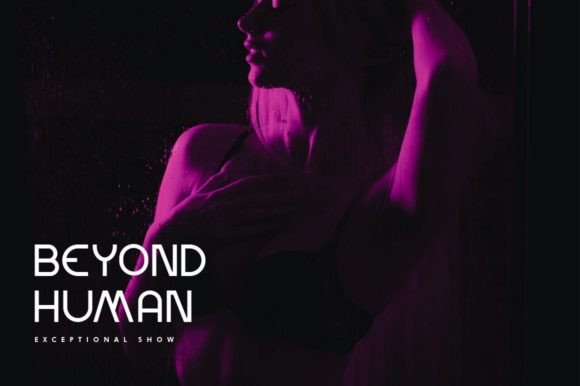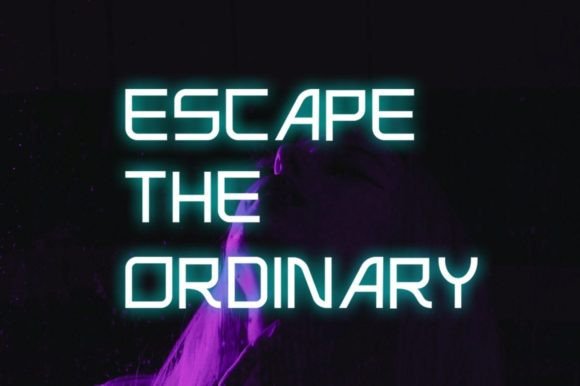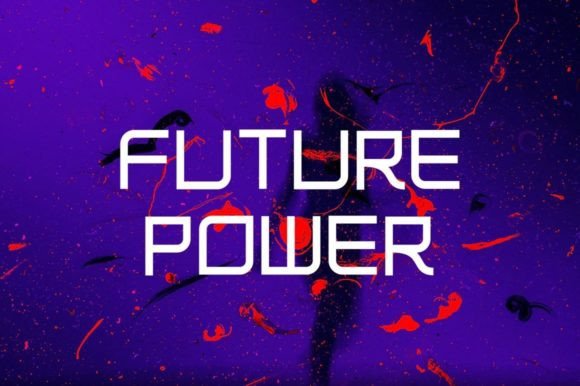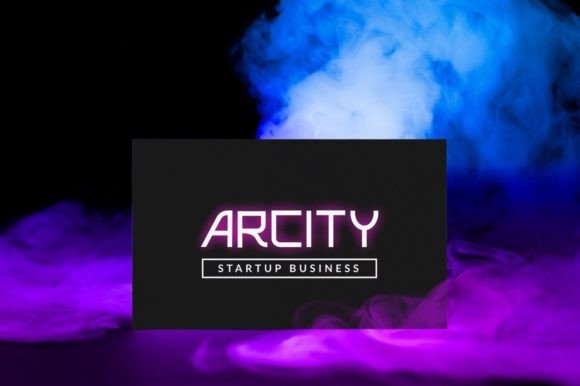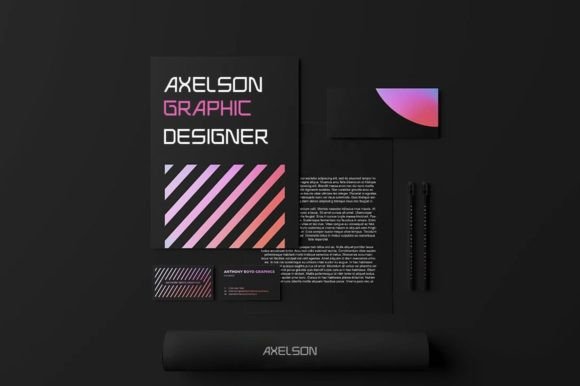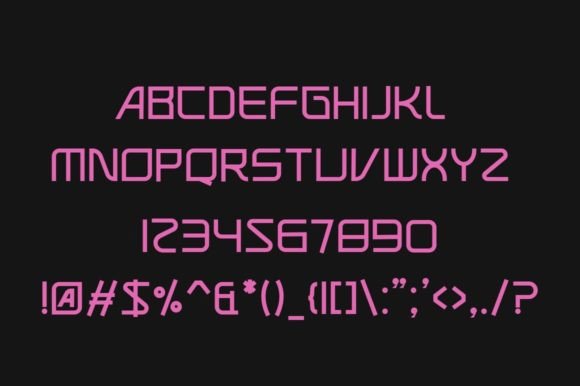
Introduction to Olympus Font
You know that feeling when you’re working on a creative project, and the right font can make all the difference? For me, it’s like the missing piece of a puzzle finally falls into place. I remember the countless hours I spent searching for the perfect font to match my brand’s futuristic vibe. And then, I stumbled upon the Olympus Font – a game-changer in the world of design.
This sleek, modern font is a designer’s dream come true. With its unique lowercase characters and special alternates, the Olympus Font is perfect for creating logotypes that stand out from the crowd. Whether you’re working on a high-quality brochure or a website with a transparent background, this font is sure to elevate your design to the next level. And the best part? It’s available for free download, making it an invaluable resource for designers of all levels.
Key Features of Olympus Font
- High-quality, professional font ideal for creative projects, such as logos, posters, and advertisements.
- Includes 100+ unique glyphs, including uppercase and lowercase letters, numbers, and special characters.
- Designed with a modern and sleek aesthetic, perfect for high-end designs and creative projects.
Honest Review: Olympus Font
As a designer, I’m always on the lookout for high-quality design resources that can elevate my creative projects. The Olympus Font is one such resource that caught my attention, and I’m excited to share my honest review with you.
Here are the things that work well for me:
- ✨ Elegant and modern design aesthetic that’s perfect for a wide range of creative projects
- ✨ High-quality typography that’s crisp and clear, even at smaller font sizes
- ⚠️ Limited customization options, which may not be ideal for designers who like to get creative with their typography
Overall, I’m impressed with the Olympus Font’s clean design and high-quality typography. While it may not offer the most customization options, it’s a great addition to any designer’s toolkit. If you’re looking for a free, high-quality font for your creative project, the Olympus Font is definitely worth checking out.
Olympus Font
The Olympus Font is a versatile design resource perfect for any creative project. With its high quality and transparent background, it’s an ideal choice for designers looking to elevate their work.
Tips for Getting the Most Out of Olympus Font
To get the most out of the Olympus Font, experiment with different sizes, styles, and combinations with other design elements. You can also use it in conjunction with other design resources, such as graphics and textures, to create a unique and eye-catching design.
The Olympus Font is suitable for a wide range of design projects, including logos, brochures, business cards, and social media graphics. Its versatility and high quality make it an ideal choice for designers of all levels.
Alternatives to Olympus Font
Alegreya is a high-quality serif font suitable for creative projects that require a touch of elegance. It features a transparent background and is ideal for use in print materials, such as posters, brochures, and business cards. Alegreya is a great alternative to Olympus Font for designers who want a sophisticated and refined look.
Montserrat is a modern sans-serif font that is perfect for designers who need a clean and minimalist design resource. It features a high contrast ratio, making it ideal for use on screens and in digital applications. Montserrat is a good alternative to Olympus Font for designers who want a bold and contemporary look.
Playfair Display is an elegant serif font that is suitable for creative projects that require a touch of luxury. It features a high-quality design and is ideal for use in invitations, wedding materials, and other special occasions. Playfair Display is a great alternative to Olympus Font for designers who want a sophisticated and high-end look.
Q: Does the Olympus Font include a transparent background?
Yes, the Olympus Font includes a transparent background, making it ideal for use in graphic design, digital art, and other creative projects where a clear background is necessary.